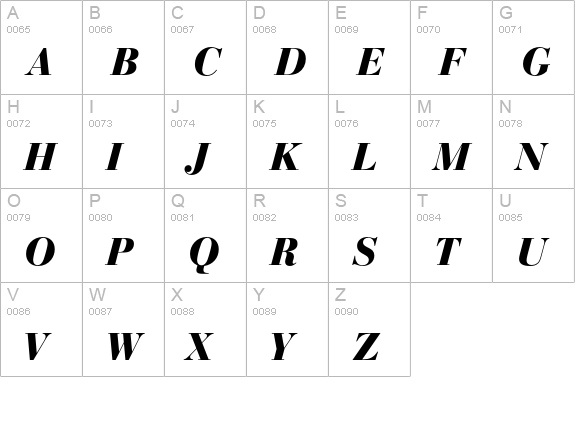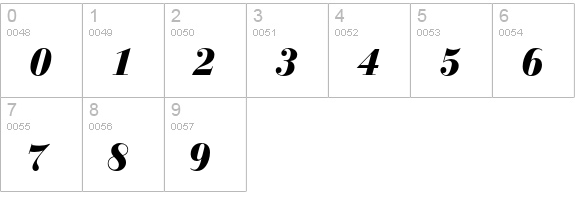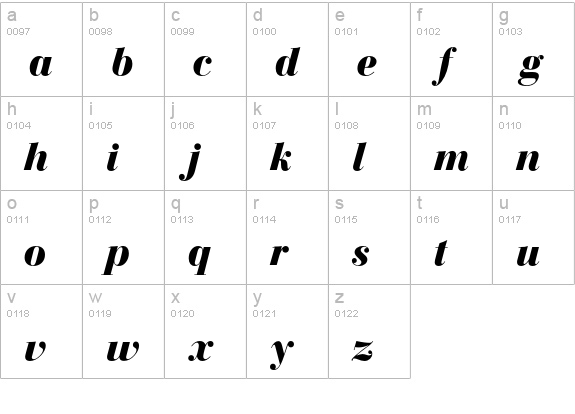
Bauer Bodoni Black Italic Font Details
Bauer Bodoni Black Italic is a maximum-weight, dramatic, italic variant in the Bauer typeface family \xE2\x80\x94 well suited to maximum-impact headlines, posters, and packaging.
Bauer Bodoni Black Italic is a striking and elegant font that exudes sophistication and style. Its bold and slanted characters command attention and add a touch of drama to any design project. The sleek lines and sharp serifs of Bauer Bodoni Black Italic create a sense of luxury and refinement, making it perfect for high-end branding, editorial design, and fashion projects. What's even better is that Bauer Bodoni Black Italic is available for free download at FontsMarket.com. This means you can easily access this premium font without any cost, allowing you to elevate your designs without breaking the bank. Don't miss out on the opportunity to add this timeless and versatile typeface to your font collection today!